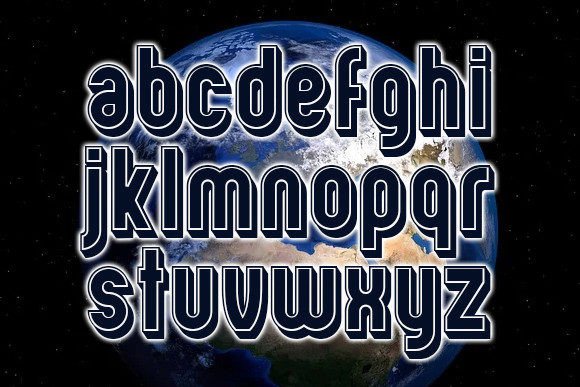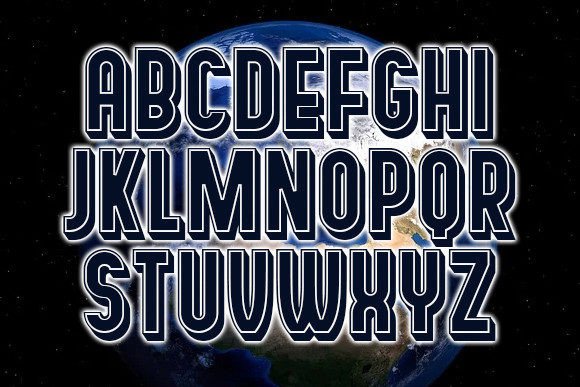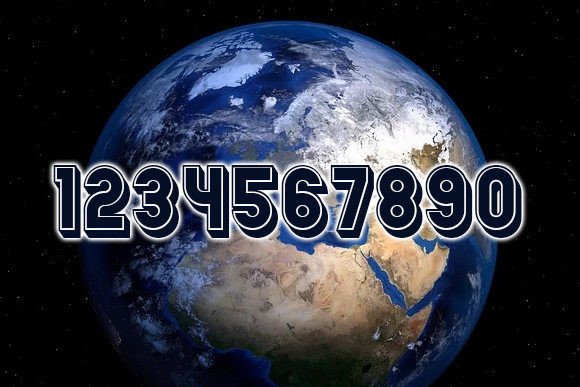
Introduction to Mundo Font
As a designer, there’s nothing quite like the thrill of bringing a creative project to life. You’ve spent hours brainstorming, sketching, and perfecting every detail, and finally, it’s time to add the finishing touches. But have you ever found yourself stuck on the perfect font to elevate your design? That’s where the Mundo Font comes in – a stunning, elegant 3D font family that’s sure to take your works to the next level.
With its high-quality design and versatility, Mundo Font is an invaluable resource for designers looking to add a touch of sophistication to their projects. Whether you’re creating a poster, flyer, or even a t-shirt design, this font is sure to make a lasting impression. And the best part? It’s available for free download, complete with a transparent background, making it easy to incorporate into your designs.
Key Features of Mundo Font
- Designed to be highly legible, with a clear and modern aesthetic that works well in both digital and print projects.
- Includes a range of glyphs and characters, making it a versatile font for creative projects.
Honest Review: Mundo Font
I recently stumbled upon Mundo Font while searching for a design resource for a creative project. The font caught my attention with its unique, high-quality design that immediately stood out.
- High-quality design that is perfect for creative projects
- Works well for both digital and print designs
- Only comes in a single style, which may limit its versatility
- Not ideal for complex or large-scale designs due to its simplicity
Overall, Mundo Font is a solid choice for designers who need a high-quality, free font for their creative projects. While it may have some limitations, its unique design and transparent background make it a valuable addition to any design resource library.
Getting the Most Out of Mundo Font
For optimal results, use Mundo Font in conjunction with other design elements, such as images or graphics. Experiment with different font sizes and colors to create a visually appealing design. Additionally, consider using Mundo Font in combination with other free design resources to create a cohesive look.
Common Use Cases for Mundo Font
Mundo Font is ideal for a variety of design projects, including business cards, brochures, and presentations. Its transparent background and high-quality design make it a versatile choice for designers and non-designers alike.
Comparison to Mundo Font: Oswald Font has a similar sans-serif style to Mundo Font but with a more modern and sleek look. While Mundo Font is more versatile, Oswald Font excels in projects that require a clean and minimalistic design.
Montserrat Font is a geometric sans-serif font that is perfect for designers who want to add a touch of sophistication to their design resource. It has a high-quality look and feels great for titles and headings. This font is available for free download and can be used with a transparent background.
Is Mundo Font suitable for high-resolution printing?
Yes, Mundo Font is designed to meet the highest standards of quality, making it ideal for high-resolution printing applications. The font’s crisp and clear design ensures that it will look great in print, even at large sizes or high resolutions.